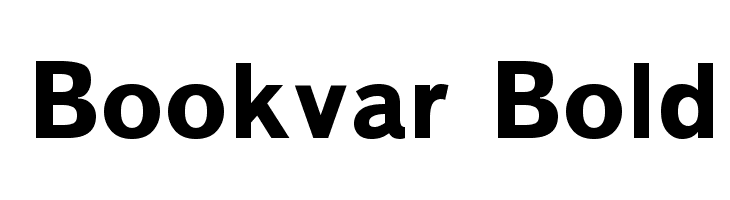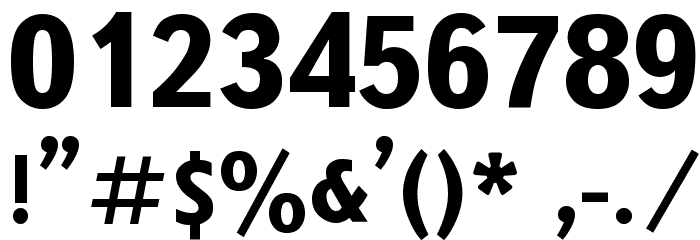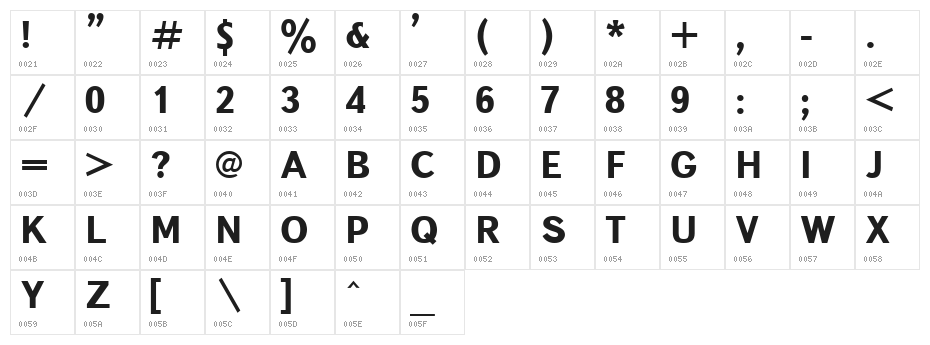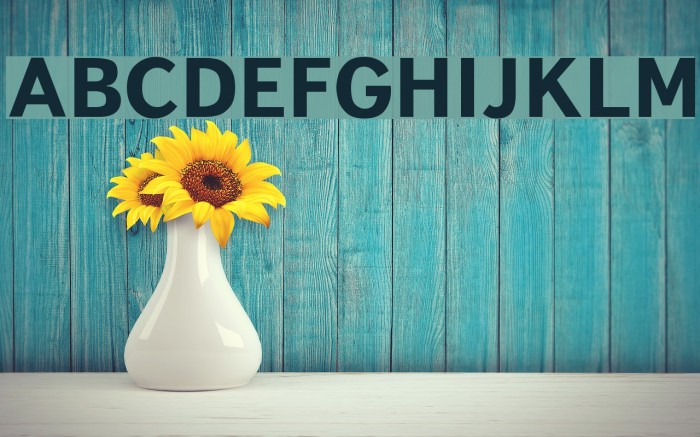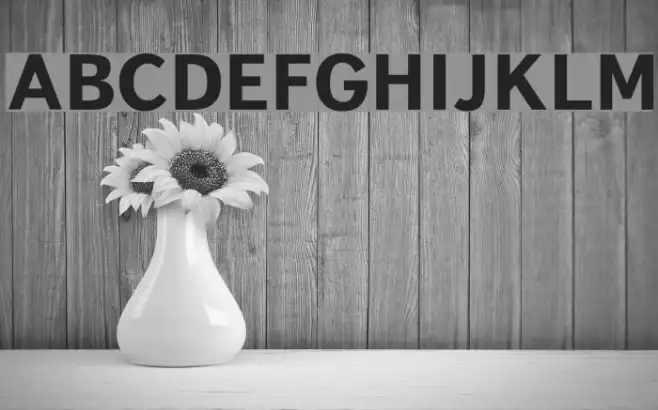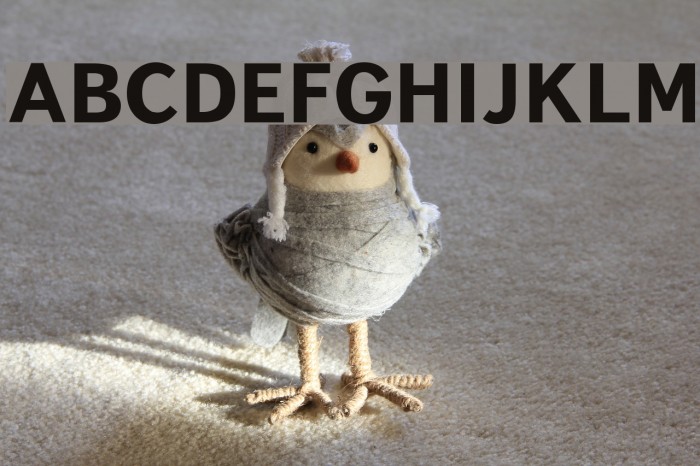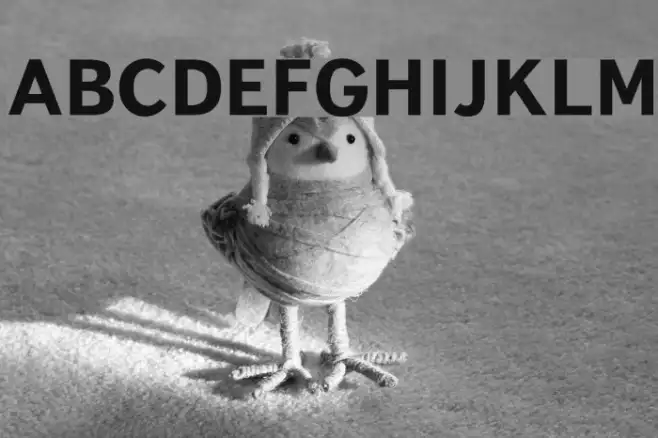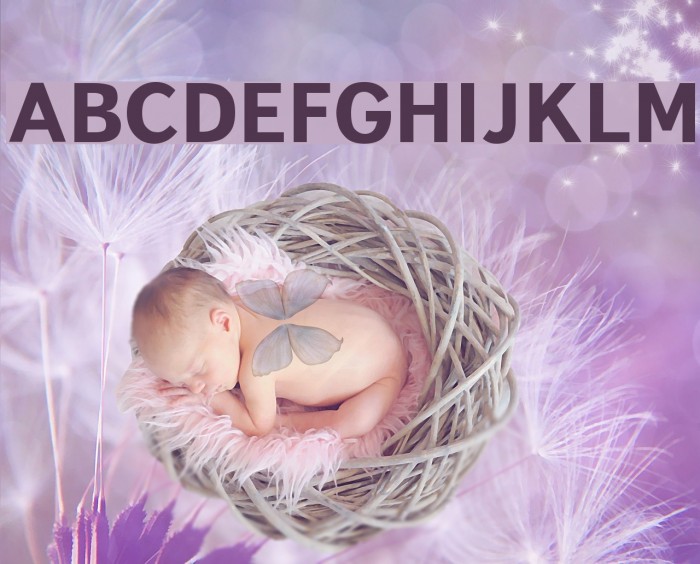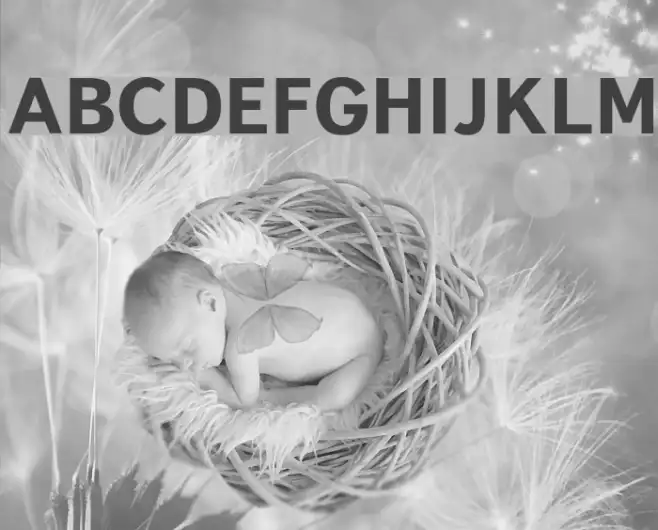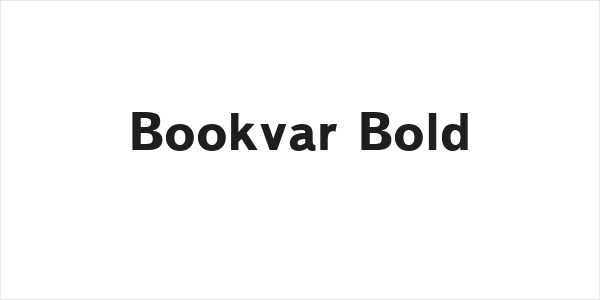
Bookvar Bold Font
Bookvar Bold Description
This font exhibits a bold and assertive presence with its thick, uniform strokes and clean lines. The characters are well-defined, offering excellent legibility across both uppercase and lowercase letters. The numerals are robust and consistent with the overall bold style, making them stand out effectively. Special characters are designed with clarity and precision, ensuring they integrate seamlessly with the rest of the character set. The font's strong and modern aesthetic makes it suitable for a variety of applications where impact and readability are essential.
| Proposed Projects | Ideal for headlines, posters, branding, and any project requiring a strong visual impact. |